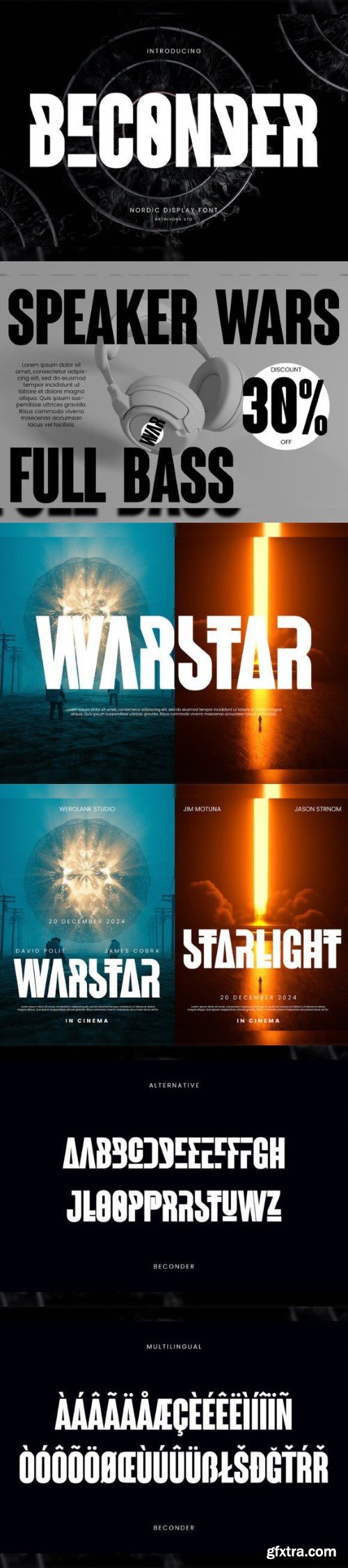
Beconder, a Nordic Display Font, is a simple yet striking typeface inspired by the clean and bold design aesthetics of the Nordic region. With its straightforward style, Beconder brings a touch of modernity to your text while maintaining a sense of Nordic minimalism. Ideal for making a strong visual impact, this font is perfect for various design projects, ensuring clarity and a contemporary feel. Embrace Beconder for a sleek and timeless typographic choice in your creative endeavors.